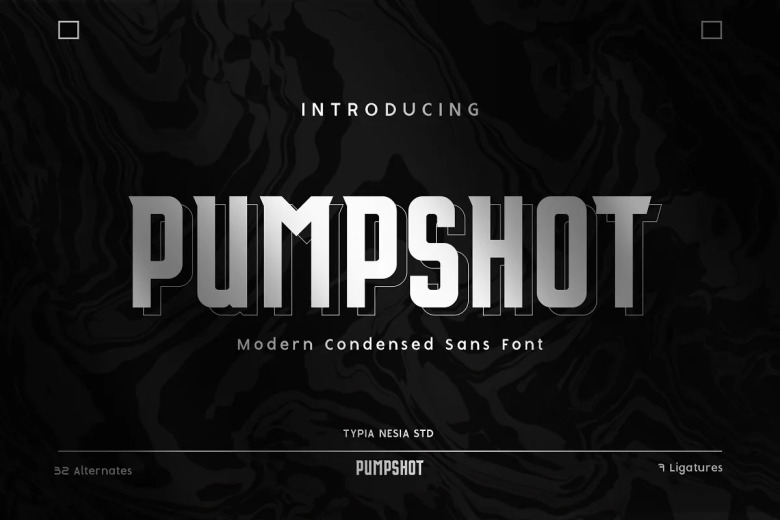
Pumpshot Font
Pumpshot – Sport and Fashion Font – Bold Condensed Modern Sans Serif Font. Pumpshot font is perfect for your up coming projects. Such as logo branding, editorial design, stationery design, sport design, fashion, gaming, blog design, modern advertising design, card invitation, art quote, home decor, book/cover title, special events and any more.
Pumpshot Sans Serif Font